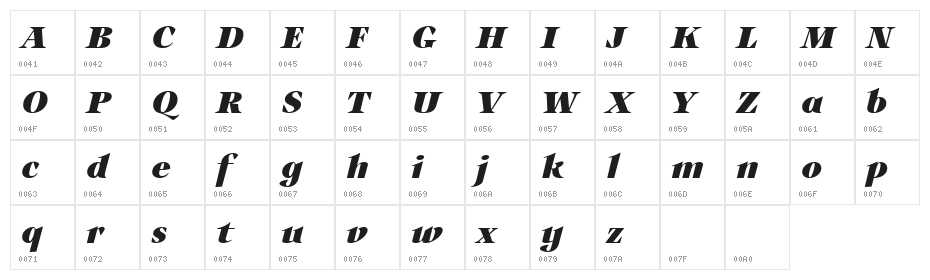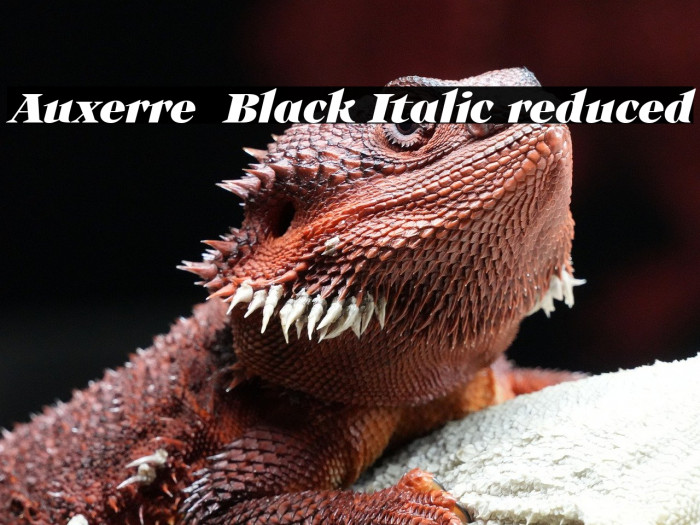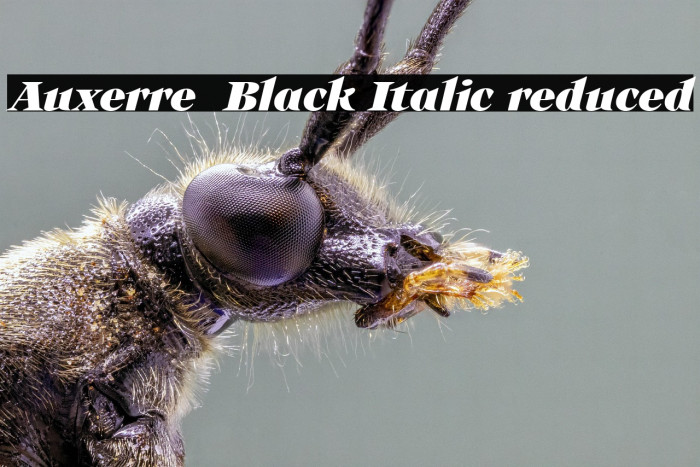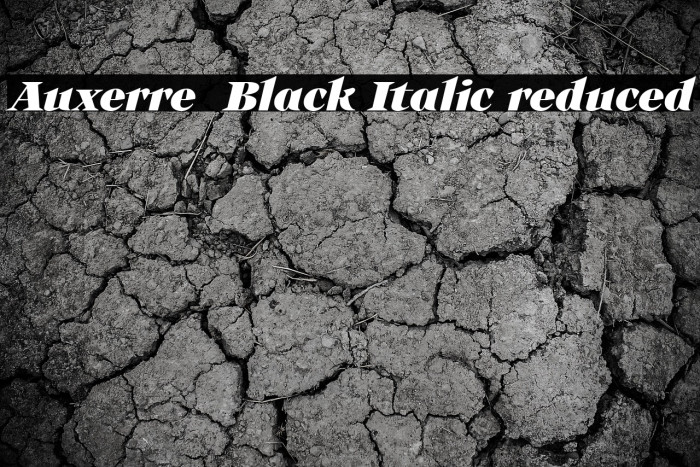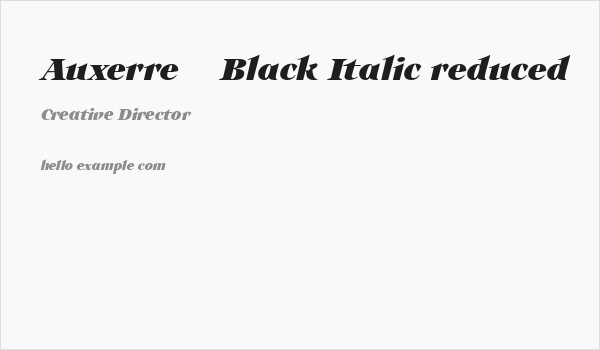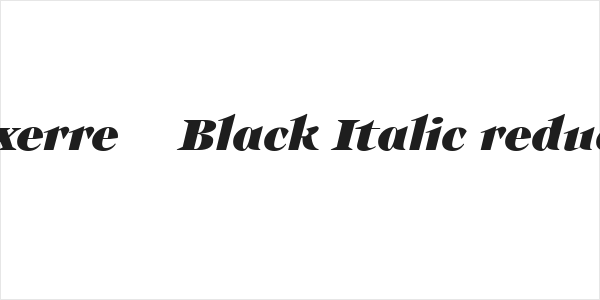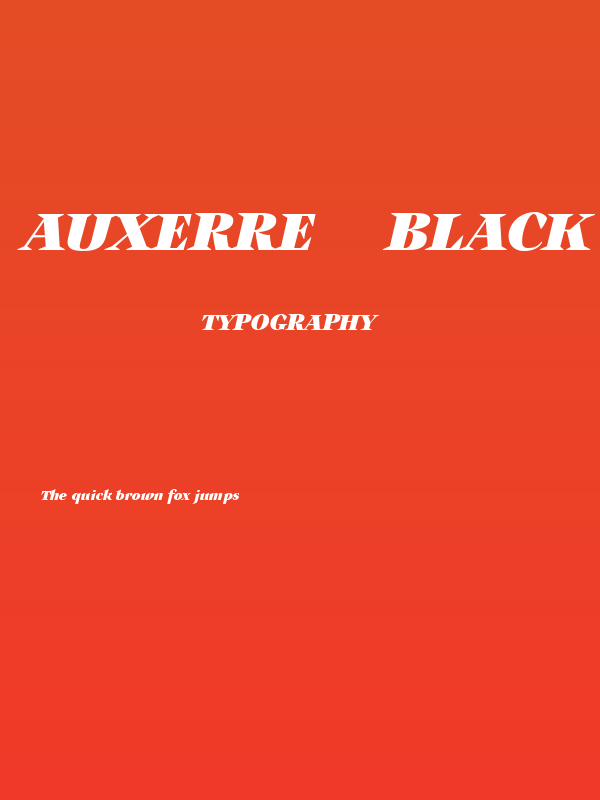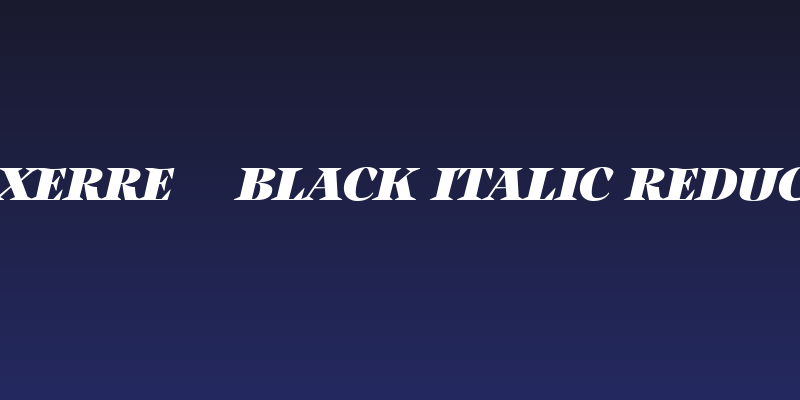
Auxerre 86 Black Italic reduced Font
Auxerre 86 Black Italic reduced Description
This font features a bold and dynamic style with a pronounced italic slant, giving it a sense of movement and energy. The characters are thick and robust, with high contrast between the thick and thin strokes, adding a dramatic flair. The serifs are sharp and angular, contributing to its bold appearance. The overall design is modern yet retains a classic elegance, making it suitable for impactful headlines and titles. The spacing between characters is tight, enhancing the compact and cohesive look of the text.
| Use Case | Headlines |
| Proposed Projects | Ideal for magazine covers, branding, advertising, and any project requiring a strong, eye-catching typeface. |